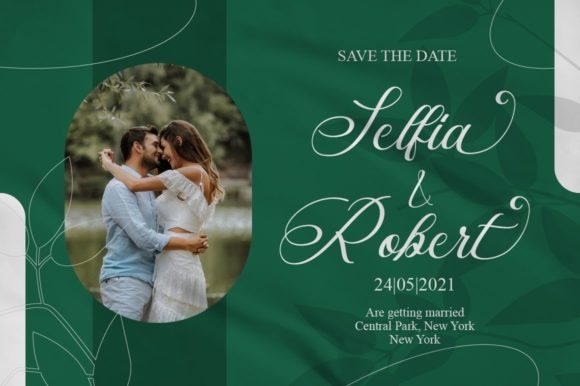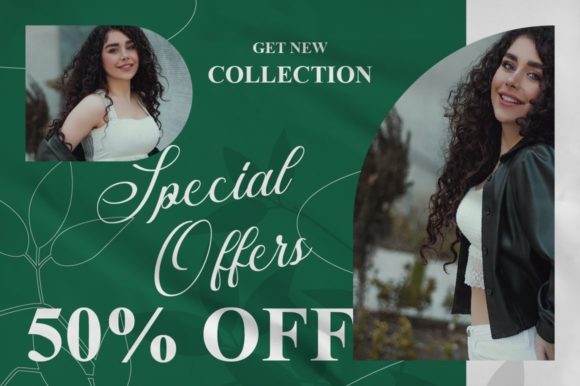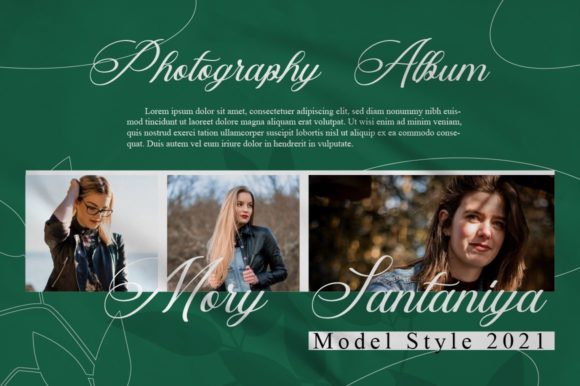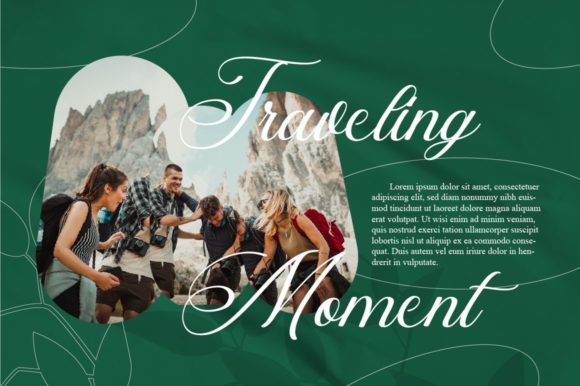
Introduction to Marsyanda Font
Imagine you’re working on a design project and you’re trying to capture the essence of a romantic evening. The soft glow of the candles, the gentle rustle of the leaves, and the sweet whispers of love in the air. You’re searching for the perfect font to add that extra touch of luxury and elegance to your design, but nothing seems to fit the mood.
That’s where the Marsyanda Font comes in – a beautiful, hand-crafted calligraphy typeface that will transport your design to a world of sophistication and refinement. With its unique, flowing characters that dance along the baseline, this font is the perfect addition to any design project that requires a touch of high-end style.
Key Features of Marsyanda Font
- Features a clean and minimalist design, making it perfect for use in logos, branding, and digital art.
- Part of a comprehensive font family, offering a wide range of styles and weights to enhance your creative project.
Honest Review: Marsyanda Font
Marsyanda Font is a unique and quirky design resource that caught my attention. Its creative and eclectic vibe makes it perfect for those who want to add a touch of whimsy to their project. One of the standout features is its transparent background, which allows for seamless blending with other design elements. I particularly enjoyed the way it looked in a composition with a gradient background.
Here are some aspects that work well: ✨
- High-quality vector graphics, suitable for large-scale prints or digital displays.
- Customizable for various design purposes, including branding, packaging, or editorial content.
However, there are some limitations: ⚠️
- Limited character set, which may restrict its use for extensive text-based projects.
Overall, Marsyanda Font is a great addition to any design library. While it may not be suitable for every project, its unique aesthetic and high-quality design make it an excellent choice for creative projects that require a touch of personality.
Tips for Getting the Most Out of Marsyanda Font
Use Marsyanda Font in conjunction with other design elements to create a cohesive and visually appealing design. Experiment with different font sizes and styles to add depth and interest to your project.
Marsyanda Font is commonly used in creative projects such as graphic design, digital art, and typography. It’s also a great resource for designers looking to add a touch of elegance and sophistication to their designs.